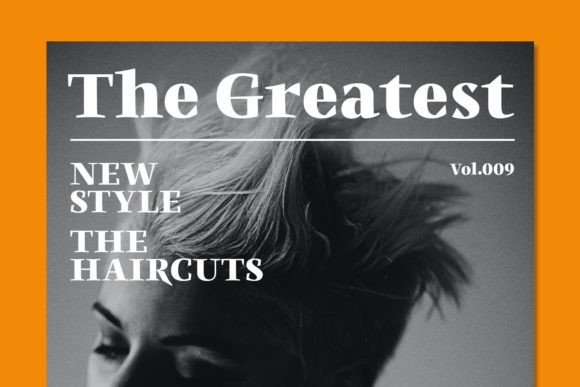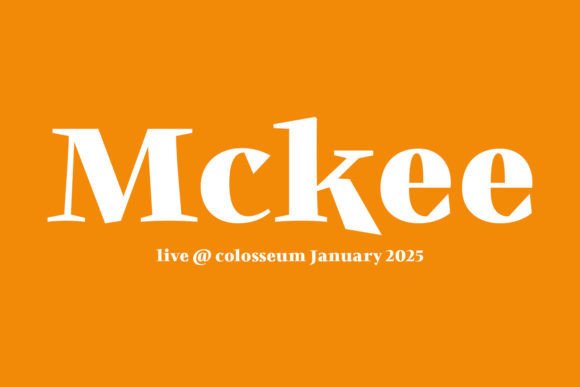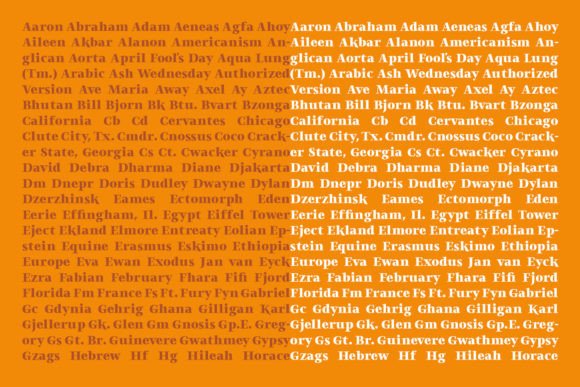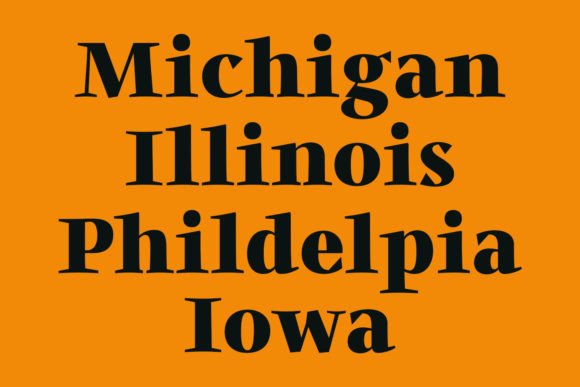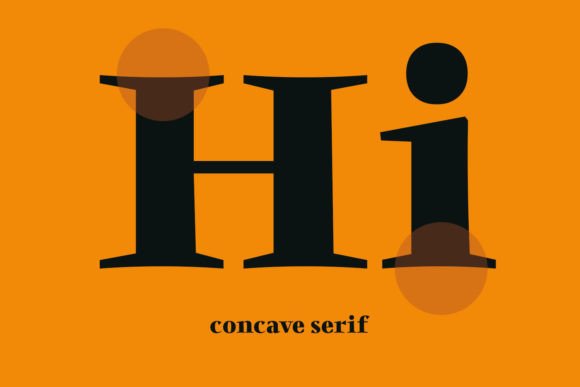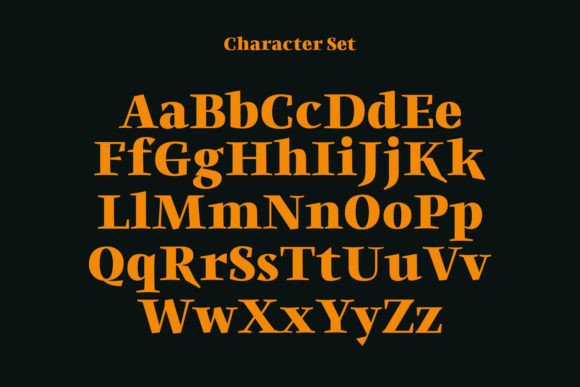
Ekrutz Font: Elevate Your Designs with a Modern Display Serif
In the world of typography, fonts play a crucial role in conveying the tone and personality of a design. For designers and crafters looking to make a statement, Ekrutz Font is an excellent choice. This modern display serif font boasts bold strokes, a playful character, and a dash of ligature and alternates, making it perfect for a wide range of applications.
What Makes Ekrutz Font Stand Out?
Ekrutz Font is a versatile and stylish font that can elevate any design project. Its bold strokes and modern serif design give it a fresh and contemporary look, while its playful character adds a touch of whimsy. The font also features ligatures and alternates, which allow for greater flexibility and creativity in your designs.
Ekrutz Font is suitable for a wide range of design projects, including:
- Logo Design: The font’s bold and modern design makes it perfect for creating eye-catching logos that stand out.
- Social Media: Use Ekrutz Font to create engaging social media posts, captions, and graphics that grab attention.
- Movie Titles: The font’s cinematic feel makes it ideal for movie titles, posters, and promotional materials.
- Book Titles: Ekrutz Font is also suitable for book titles, covers, and interior design, adding a touch of elegance and sophistication.
- Short and Long Text: Whether you’re working with short phrases or longer blocks of text, Ekrutz Font remains legible and stylish.
Pairing Ekrutz Font with Other Fonts
One of the best things about Ekrutz Font is its versatility when it comes to pairing it with other fonts. Its modern serif design makes it an excellent choice for pairing with script fonts or other serif fonts. Use Ekrutz Font as a headline font and pair it with a script font for body text, or vice versa. The possibilities are endless!
Tips for Using Ekrutz Font
To get the most out of Ekrutz Font, here are a few tips:
- Experiment with Ligatures and Alternates: Take advantage of the font’s ligatures and alternates to add visual interest to your designs.
- Play with Font Sizes: Ekrutz Font looks great in a variety of font sizes, from large headlines to smaller body text.
- Don’t Be Afraid to Get Creative: Ekrutz Font is a versatile font that can be used in a wide range of design projects. Don’t be afraid to experiment and try new things!
Key Features of Ekrutz Font
- Modern display serif font
- Bold strokes and playful character
- Ligatures and alternates for added flexibility
- Suitable for logo design, social media, movie titles, book titles, and more
- Pairs well with script fonts and other serif fonts